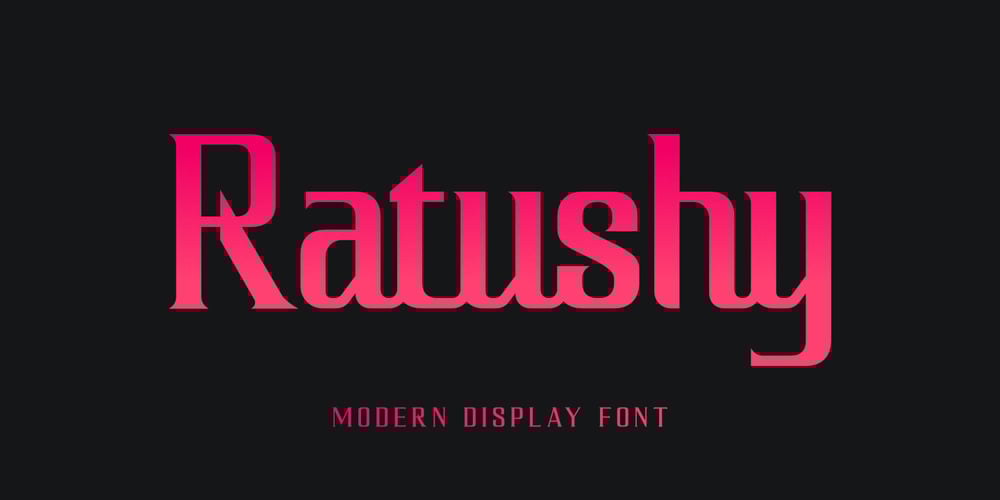
Ratushy Font Family was designed by Saiful Anwar and published by Sealoung. Ratushy contains 1 styles and family package options. Ratushy is a serif-based display font with lowercase letters that have connecting characters for a unique look and crafted with care that will make your designs stand out and modern. You can use this font for any purpose, especially to make your business more attractive. This font is also suitable for sports, e-sport logos, games or hi-tech company logos. This font also supports multilanguage.Featured Fonts: Uppercase Lowercase Numbers & Punctuation Accented characters: ÀÁÂÃÄÅÆÇÈÉÊËÌÍÎÏÑÒÓÔÕÖØÙÚÛÜÝÞŒŠŽßàááâãäåæçèéêëìíîïñòóôõöøùúûüýþÿœš ž